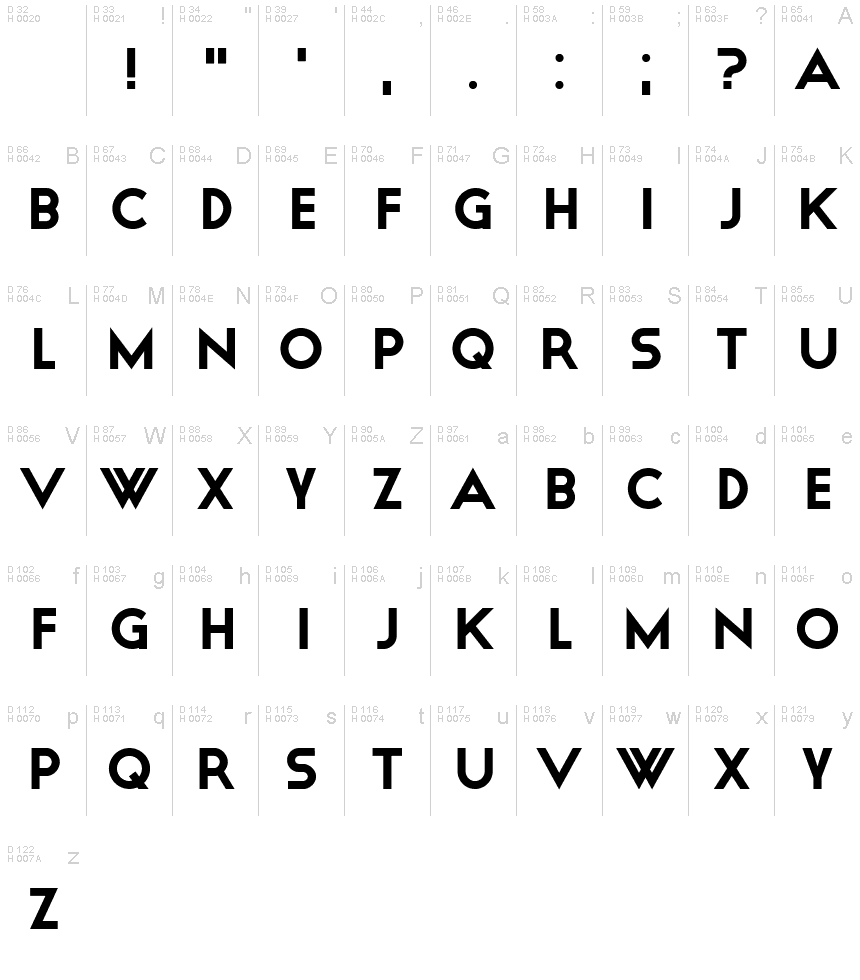
Alessandro Regular
Alessandro, designed by Vladimir Nikolic, is a versatile and dynamic sans serif font with a semi-bold weight. Its clean and modern design makes it suitable for a wide range of projects.
The elegant simplicity of Alessandro lends itself well to branding and logo designs, while its legibility makes it ideal for website headers and body text. Whether you are creating print materials such as brochures or magazines, or designing digital content like social media graphics or presentations, Alessandro will bring a touch of contemporary sophistication to your project.